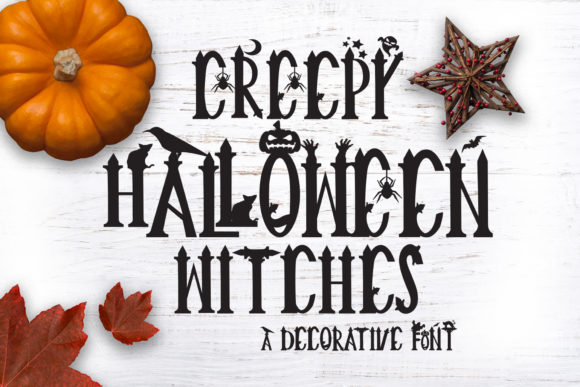
Creepy Halloween Witches Font: The Ultimate Display Font for a Spooktacular Halloween
Halloween is just around the corner, and with it comes the excitement of decorating homes, offices, and public spaces with spooky and eerie elements. One of the most iconic and recognizable symbols of Halloween is the witch, and what better way to incorporate this into your designs than with a creepy Halloween witches font? In this article, we’ll dive into the world of creepy Halloween witches fonts and explore how Creepy Halloween Witches can elevate your Halloween designs to the next level.
The Power of Fonts in Halloween Designs
Fonts play a crucial role in creating a spooky and eerie atmosphere in Halloween designs. The right font can evoke feelings of fear, excitement, and nostalgia, making it an essential element in any Halloween-themed design. When it comes to creating eye-catching and creepy Halloween designs, a unique and specialized font can make all the difference. This is where Creepy Halloween Witches comes in – a display font designed specifically for Halloween enthusiasts and designers.
Introducing Creepy Halloween Witches Font
Creepy Halloween Witches is a display font that embodies the spirit of Halloween. With its wide range of creepy Halloween-inspired details, this font is the ultimate Halloween display font. From crooked witch hats to broomsticks, cauldrons, and spiders, this font is packed with elements that will add a touch of spookiness to any design. Whether you’re designing invitations, posters, or social media graphics, Creepy Halloween Witches is the perfect font to create a hauntingly beautiful design.
Features of Creepy Halloween Witches Font
So, what makes Creepy Halloween Witches so special? Here are some of its key features:
- Creepy Halloween-inspired details: The font comes with a wide range of creepy Halloween-inspired details, including witch hats, broomsticks, cauldrons, spiders, and more.
- Unique and specialized design: Unlike generic fonts, Creepy Halloween Witches is designed specifically for Halloween, making it a unique and specialized font that will add a touch of spookiness to any design.
- Perfect for display text: This font is designed for display text, making it perfect for headlines, titles, and other prominent text elements in your designs.
- Easily customizable: Creepy Halloween Witches can be easily customized to fit your design needs, allowing you to adjust the font size, color, and style to match your brand or design.
Uses of Creepy Halloween Witches Font
So, how can you use Creepy Halloween Witches in your designs? Here are some ideas:
- Halloween invitations: Create spooky and eye-catching invitations for Halloween parties, trick-or-treat events, or haunted house attractions.
- Posters and flyers: Design posters and flyers for Halloween events, including horror movie premieres, Halloween festivals, or spooky-themed exhibitions.
- Social media graphics: Create spooky and engaging social media graphics, including Facebook posts, Instagram stories, and Twitter headers.
- Halloween-themed merchandise: Design Halloween-themed merchandise, including t-shirts, mugs, and other spooky-themed items.
Tips for Using Creepy Halloween Witches Font
Here are some tips for using Creepy Halloween Witches in your designs:
- Use it sparingly: While Creepy Halloween Witches is a beautiful font, it’s best used sparingly to avoid overwhelming your design. Use it for headlines or titles, and pair it with a simpler font for body text.
- Experiment with colors: Creepy Halloween Witches looks great in bold, bright colors, but don’t be afraid to experiment with different colors to match your brand or design.
- Pair it with other Halloween elements: Creepy Halloween Witches is designed to be paired with other Halloween elements, including images, graphics, and textures. Experiment with different combinations to create a unique and spooky design.
In conclusion, Creepy Halloween Witches is the ultimate Halloween display font for designers and Halloween enthusiasts. With its wide range of creepy Halloween-inspired details, unique and specialized design, and easily customizable features, this font is perfect for creating spooky and eye-catching designs. Whether you’re designing invitations, posters, social media graphics, or Halloween-themed merchandise, Creepy Halloween Witches is the perfect font to add a touch of spookiness to your design.